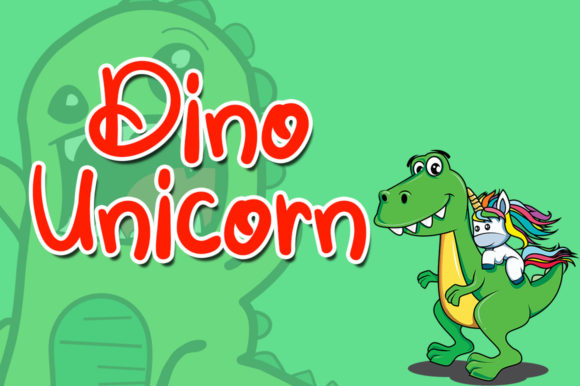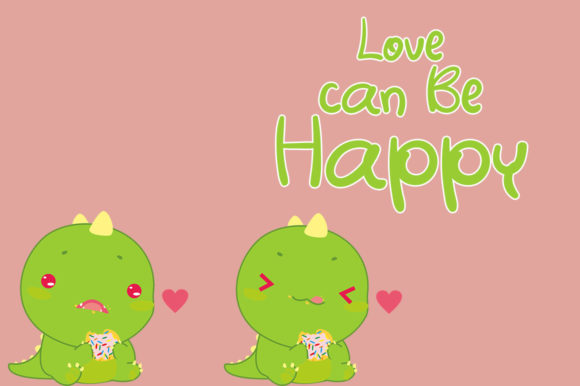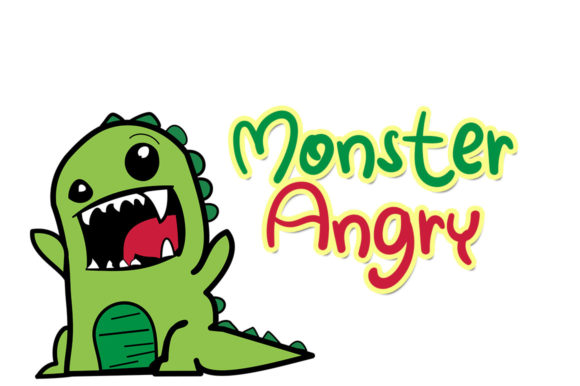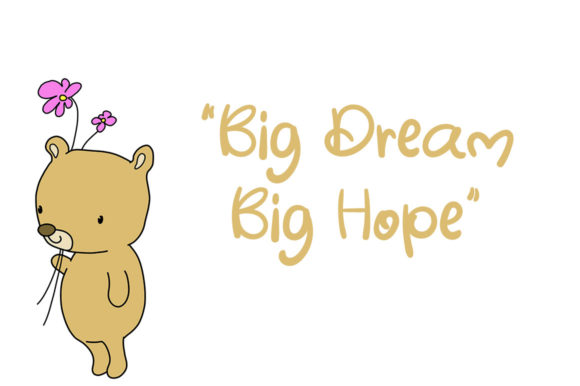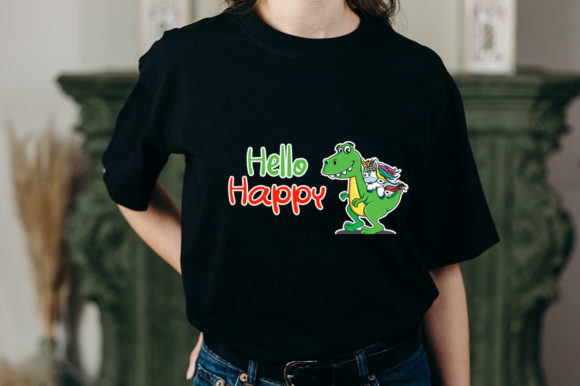
About Dino Unicorn Font
Dino UnicornĀ is a cute and simple lettered handwritten font that can be used for all chalkboard quotes or teaching material! Its authentic look will add a personal and realistic feel to your designs.